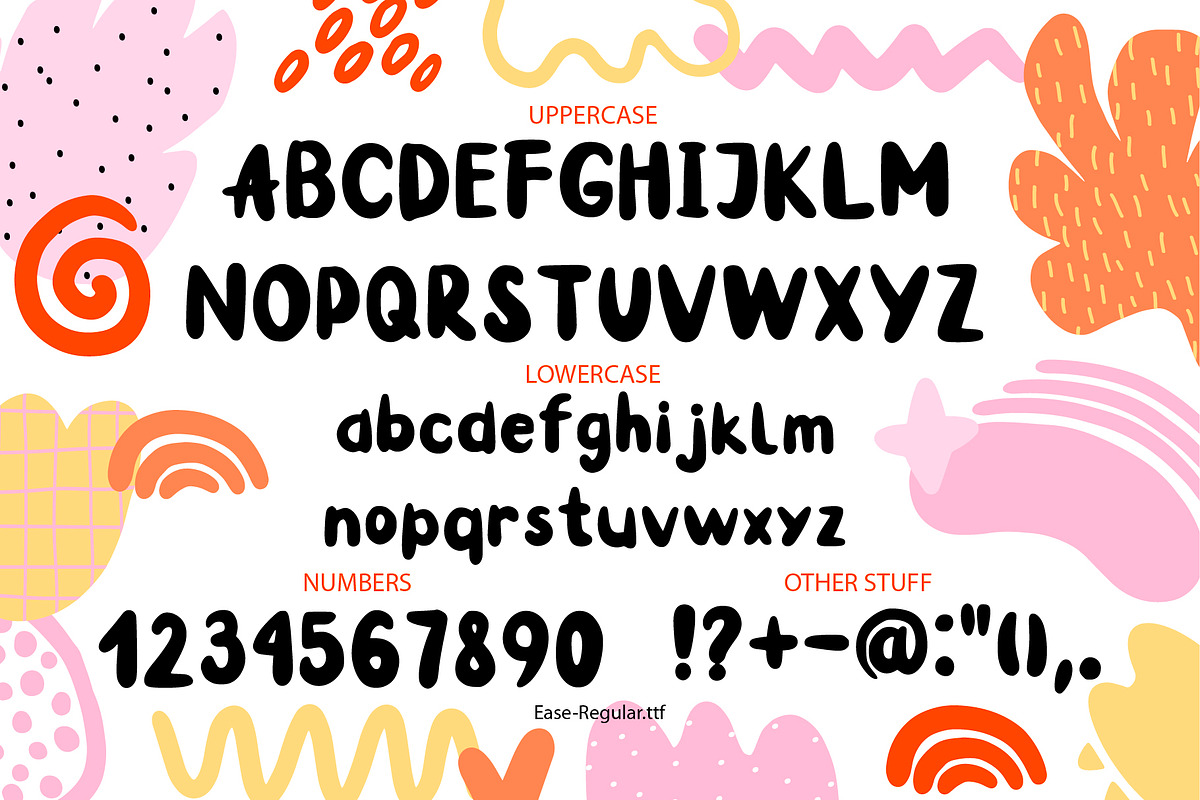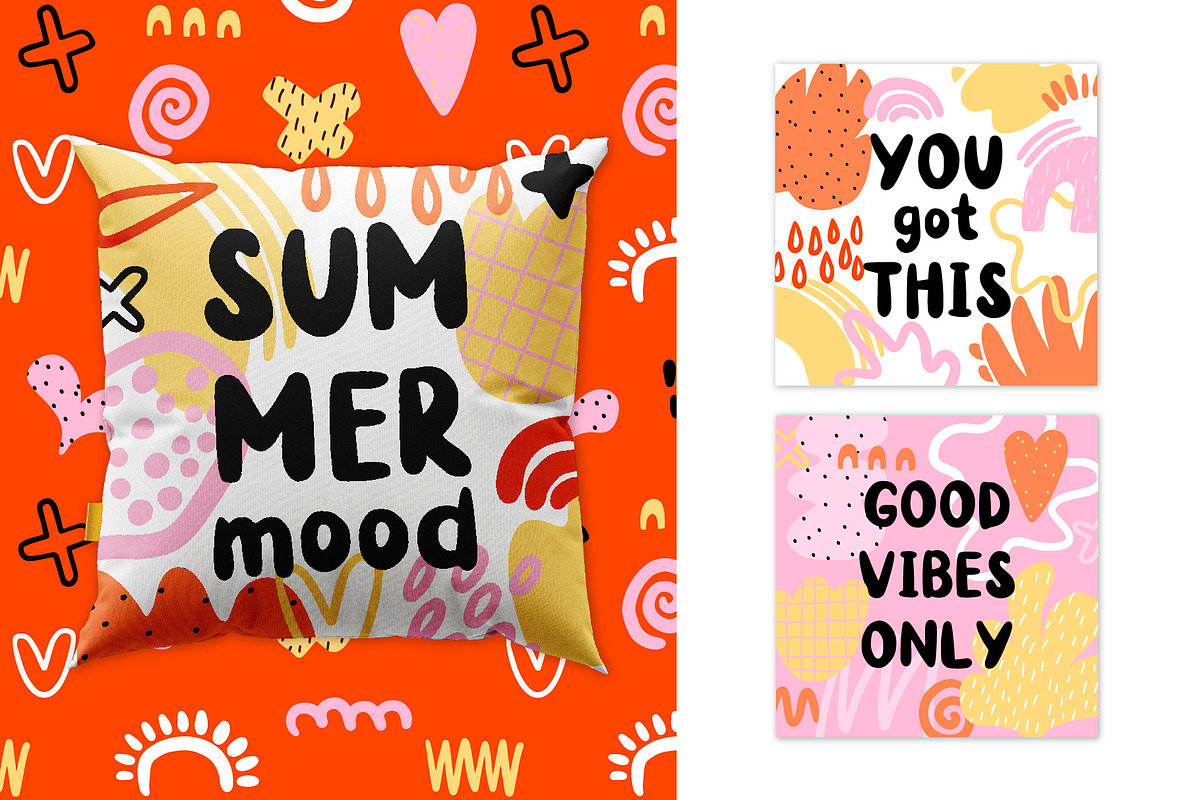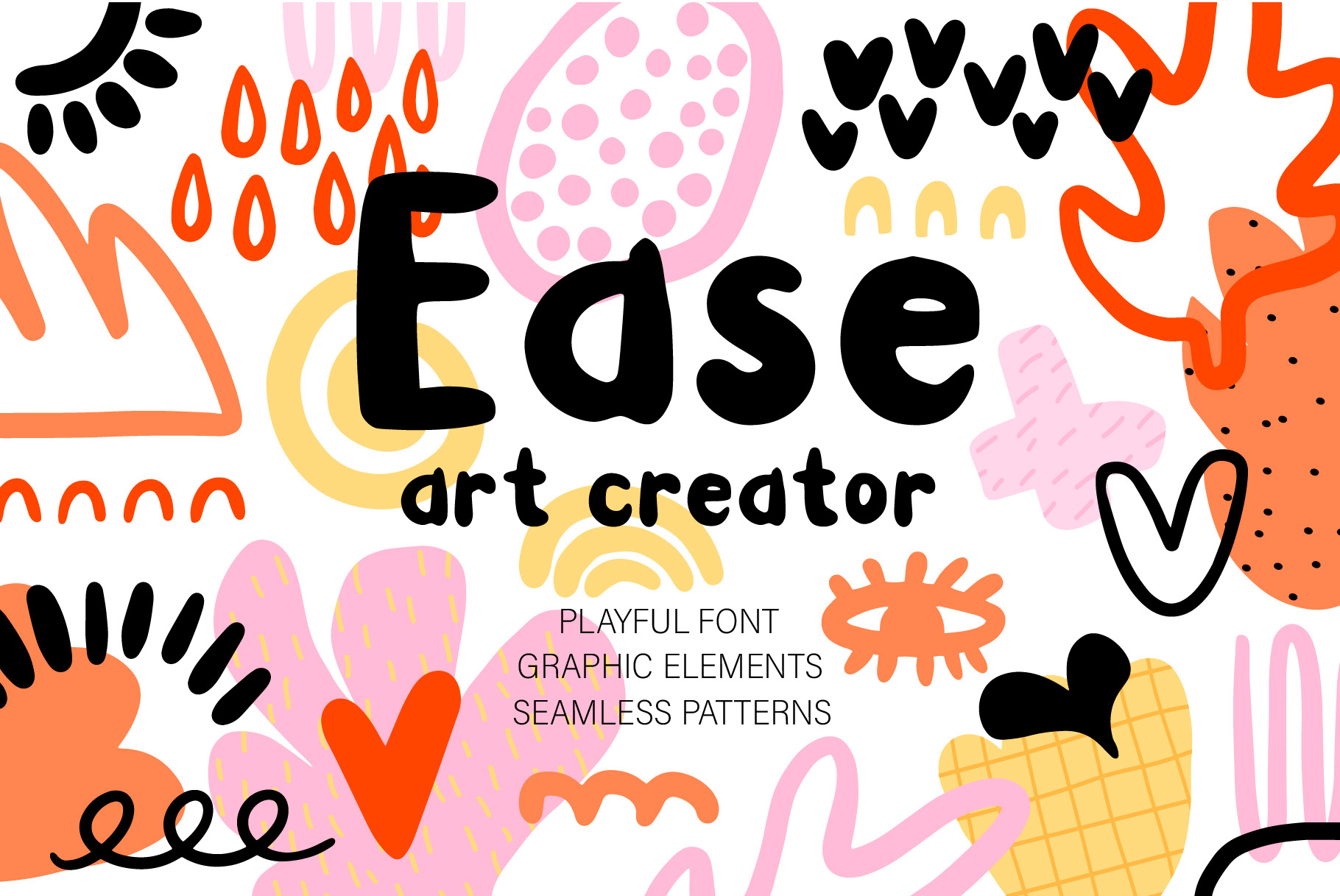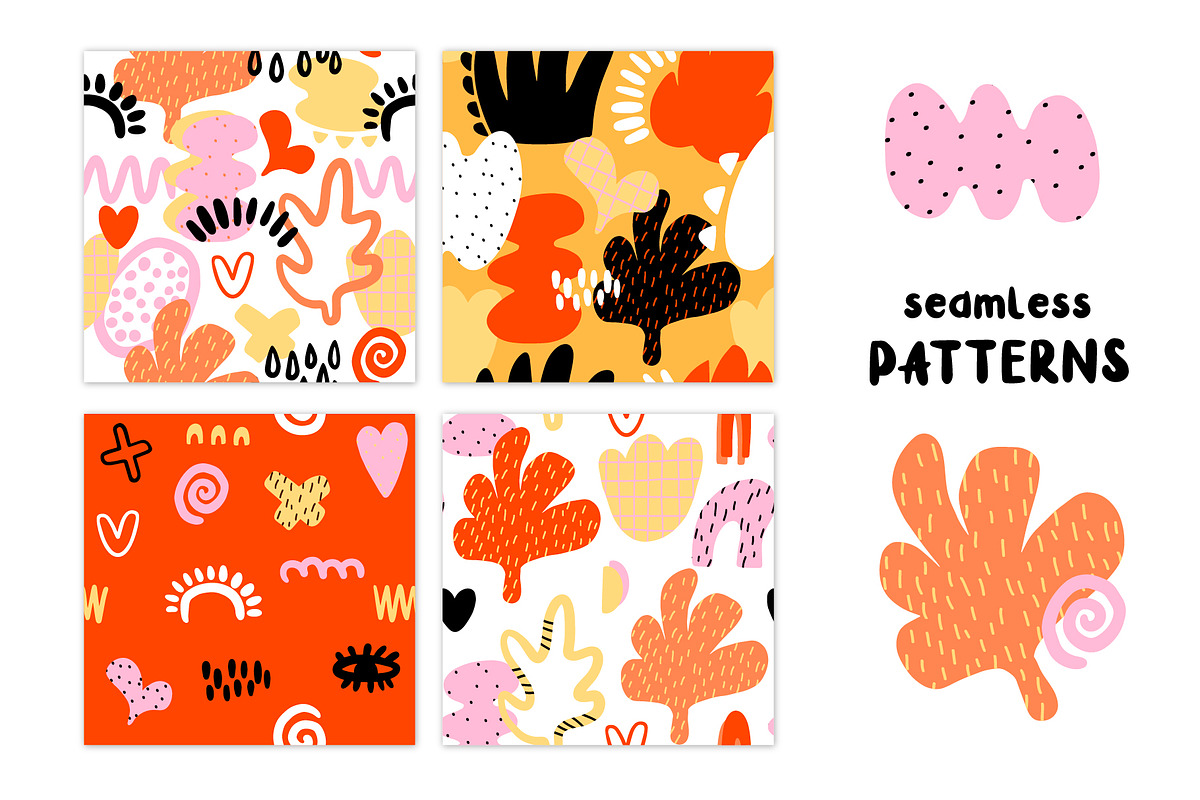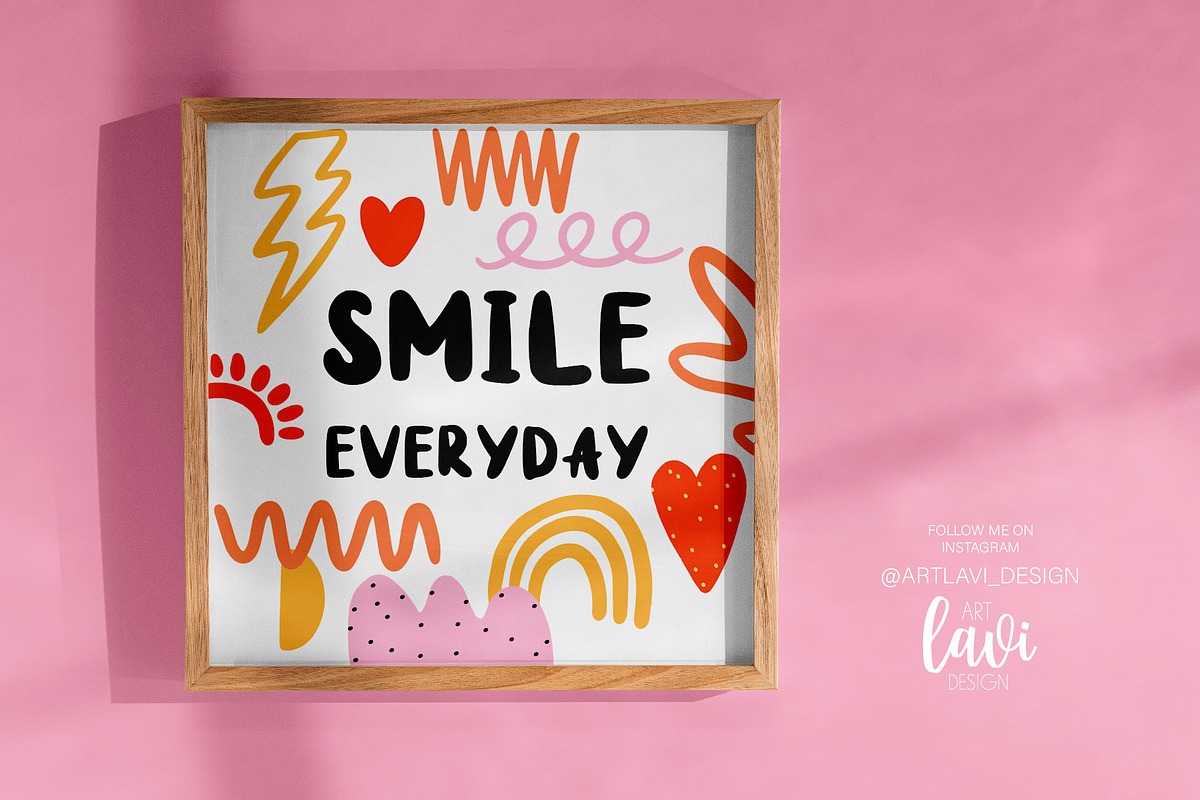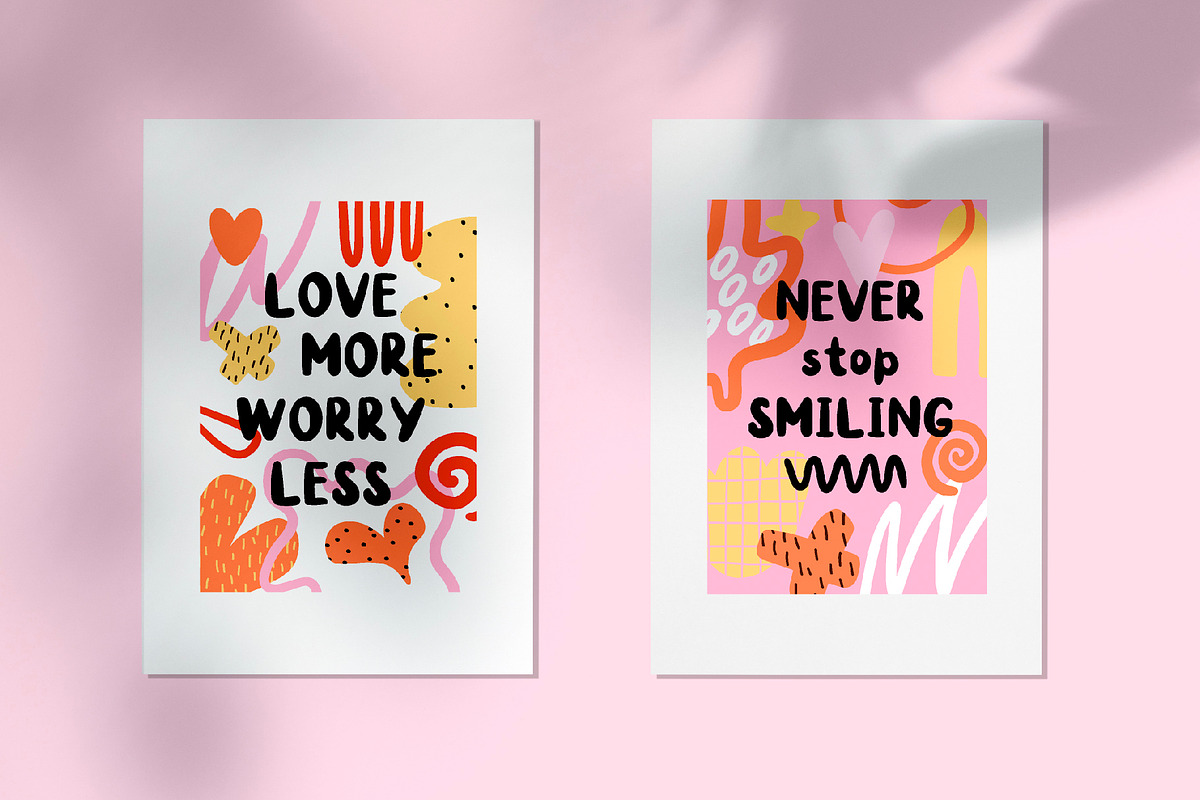
Ease font. Art creator.
This collection of handwritten funny fon, seamless patterns, pre-made cards and set graphic elements. This art creator set perfectly to create the most gorgeous card designs, mood boards, apparel design (especially t-shirts), branding designs & logo, posters and more